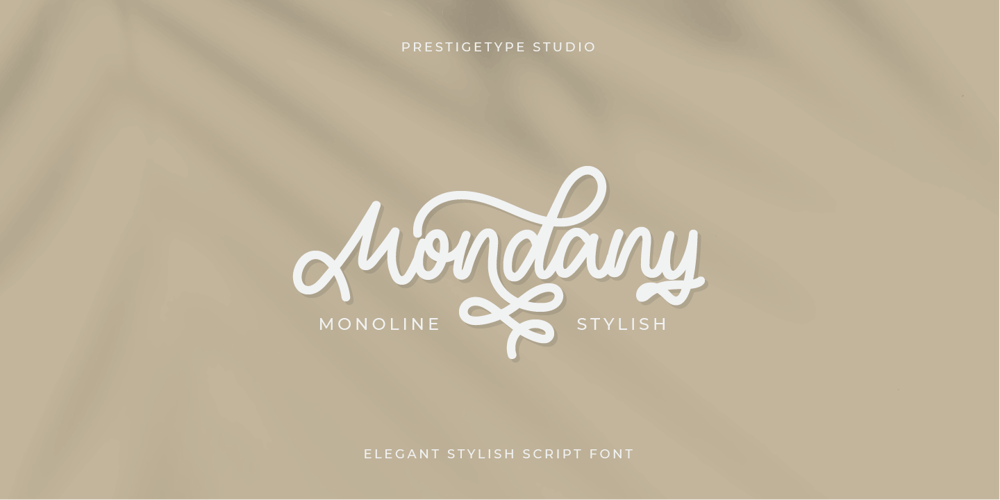
Mondany Font Family was designed by Mohamad Ridwan and published by Prestigetype Studio. Mondany contains 1 styles and family package options. The beauty of visual brand identity can direct people’s perspective and shows the value of the brand. Hence we try to bring beauty to our font that one may forge harmony for the audience. Introducing, Mondany, the (grand, divine, elegant, beautiful, etc.) monoline script font. With the neat curve glyph, Mondany is perfect for branding purposes such as logo, label, title, headline, social media, business card, quotes, and others.Mondany includes: numbers and punctuation multilingual ligatures alternates swash opentype features We highly recommend using a program that supports OpenType features and Glyphs panels like many Adobe apps and Corel Draw so you can see and access all Glyph variations.We hope you enjoy our font – please do let us know by emailing us at info@prestigetype.com or prestigetypestudio@gmail.com if you need something!